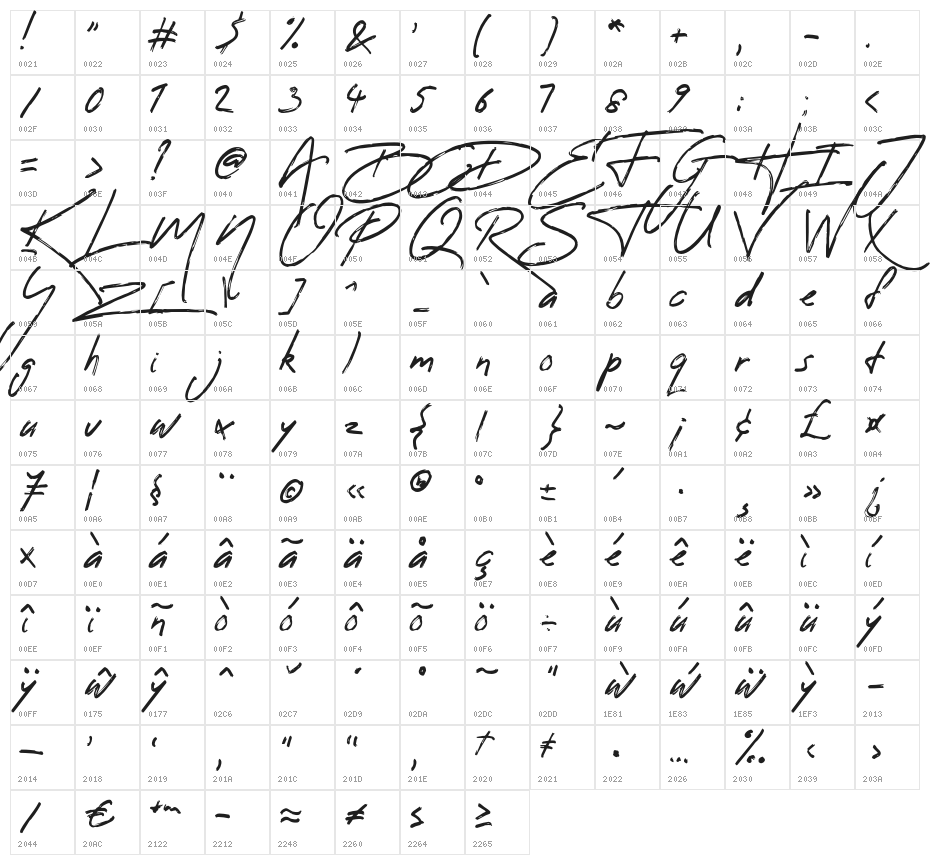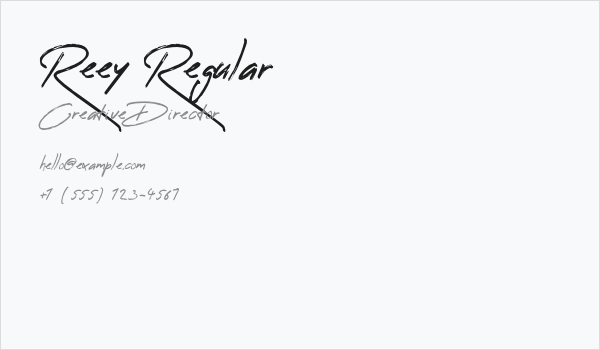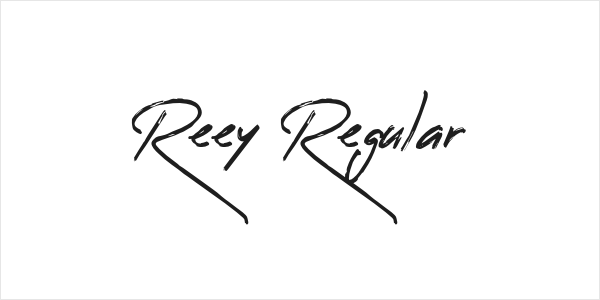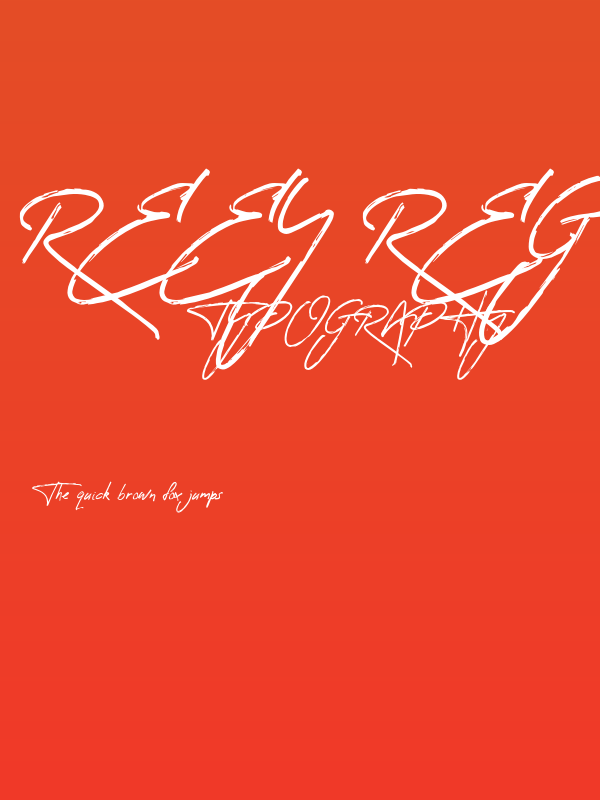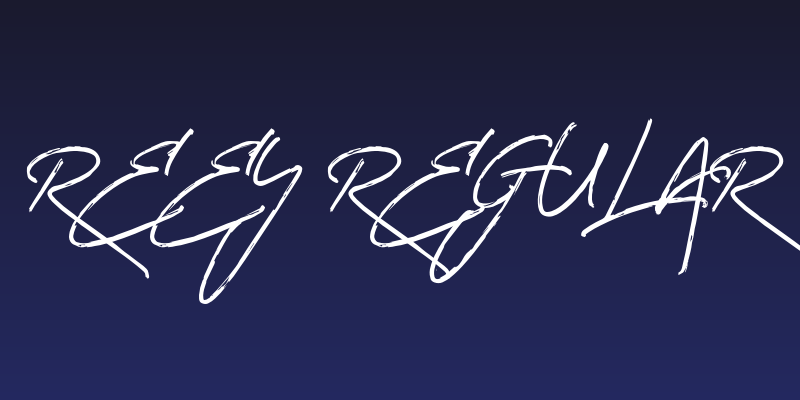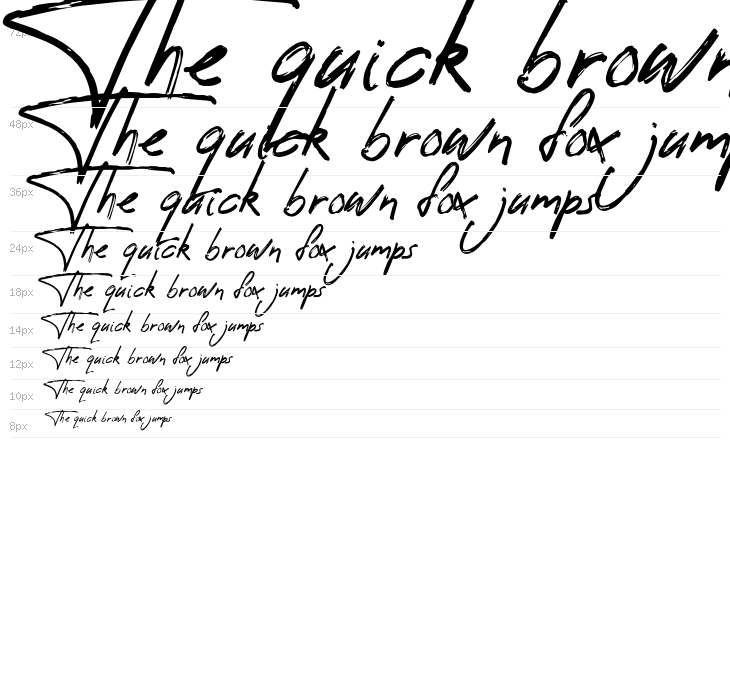
Reey Regular Font
Reey Regular Description
This font features a dynamic and expressive handwritten style, characterized by its fluid and energetic strokes. The uppercase letters exhibit a bold and sweeping form, while the lowercase letters maintain a consistent flow with slightly more compact shapes. Numbers and special characters follow the same lively aesthetic, adding a playful yet sophisticated touch. The overall appearance is both artistic and modern, making it suitable for creative projects that require a personal and informal touch.
Overall StyleModern, Artistic
Use CaseLogos, Headlines, Creative projects
Proposed ProjectsIdeal for creative projects such as invitations, greeting cards, branding, and artistic posters.